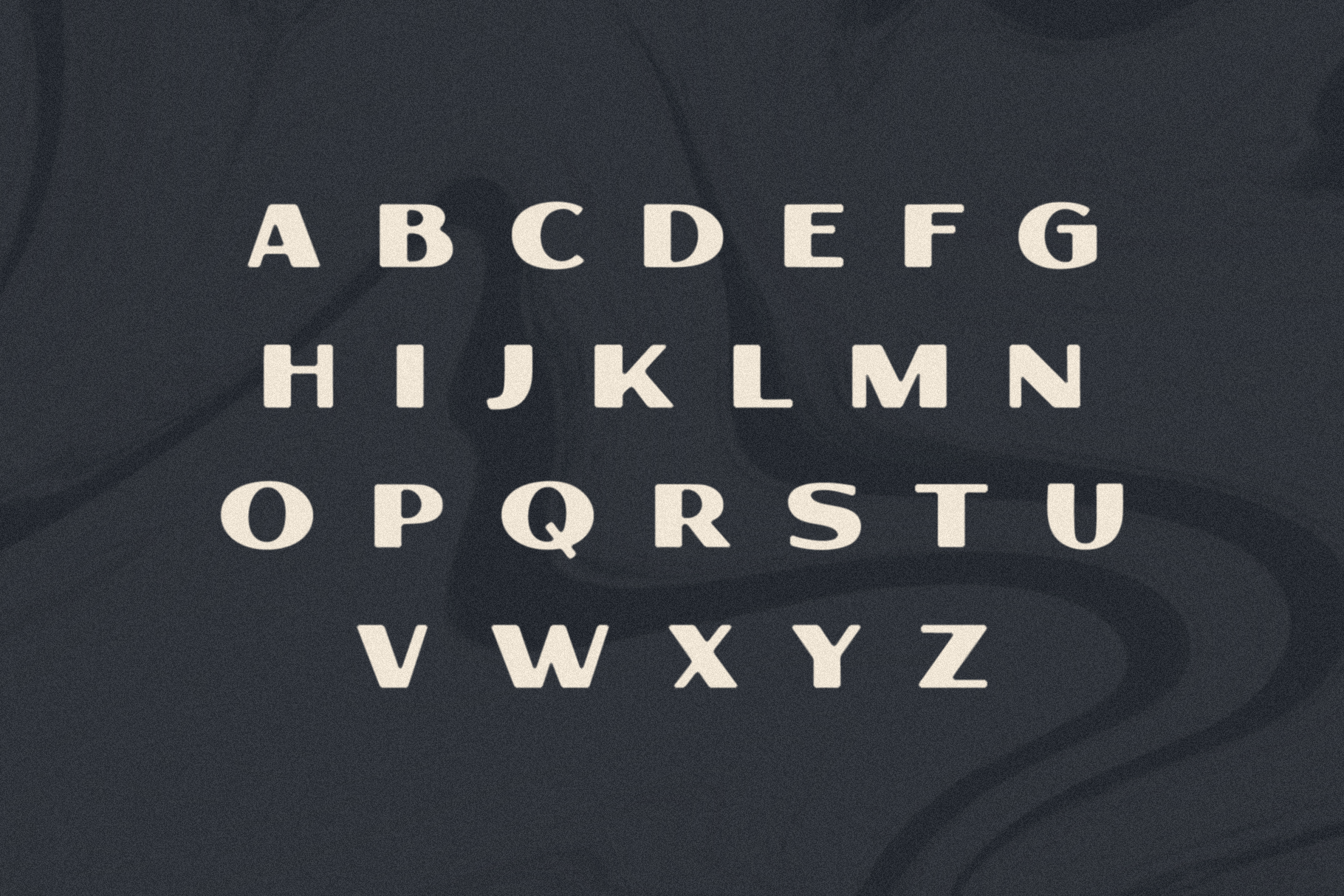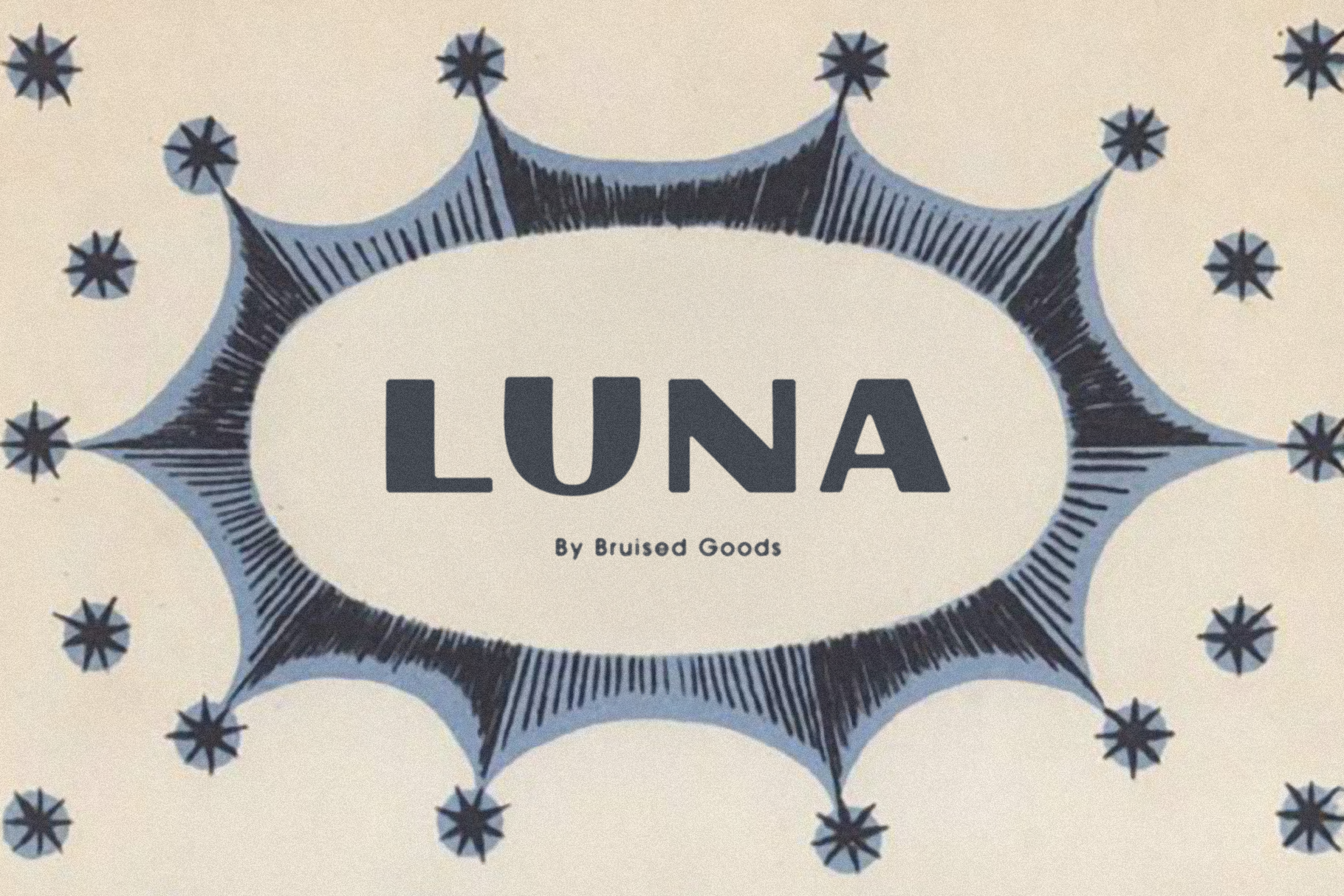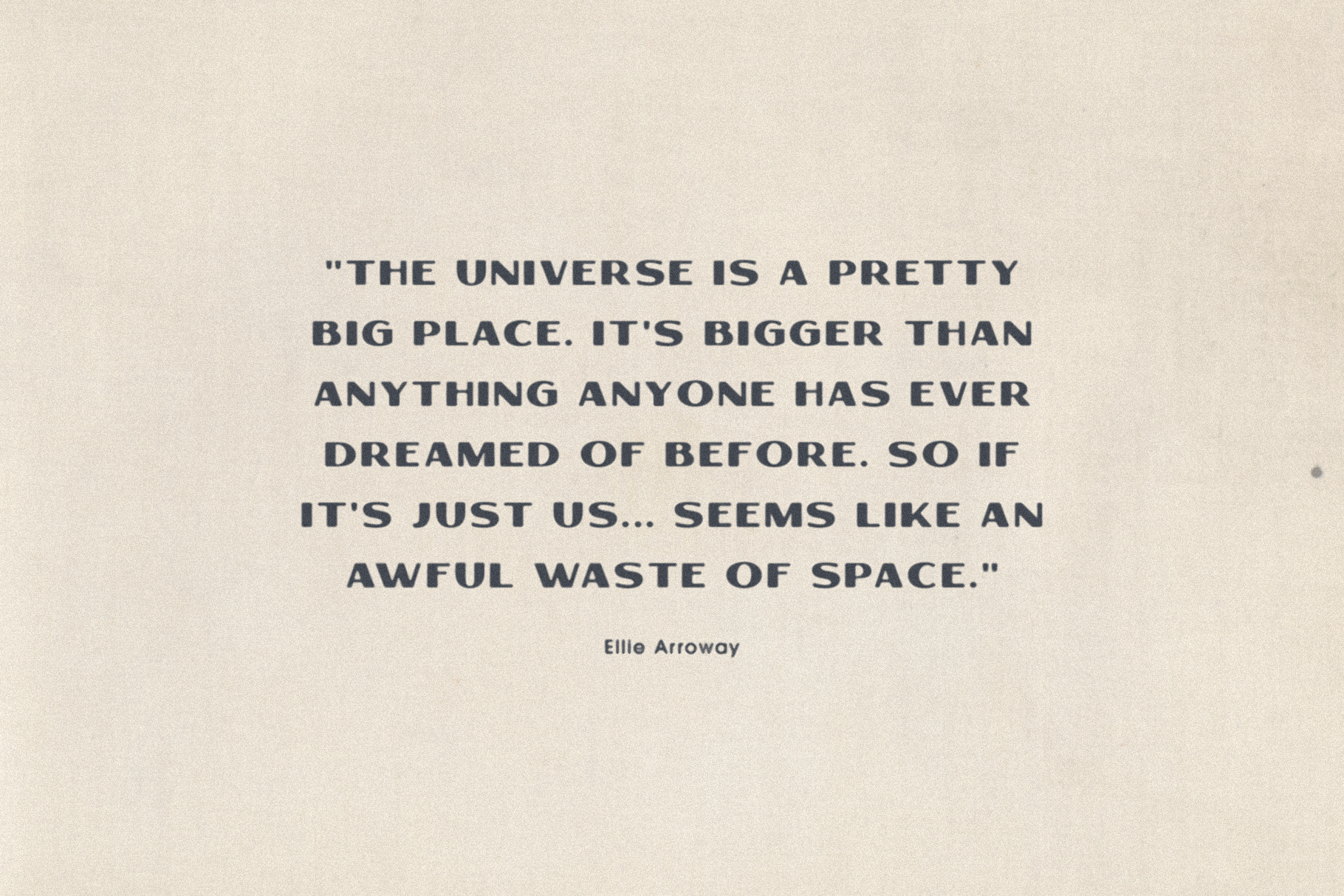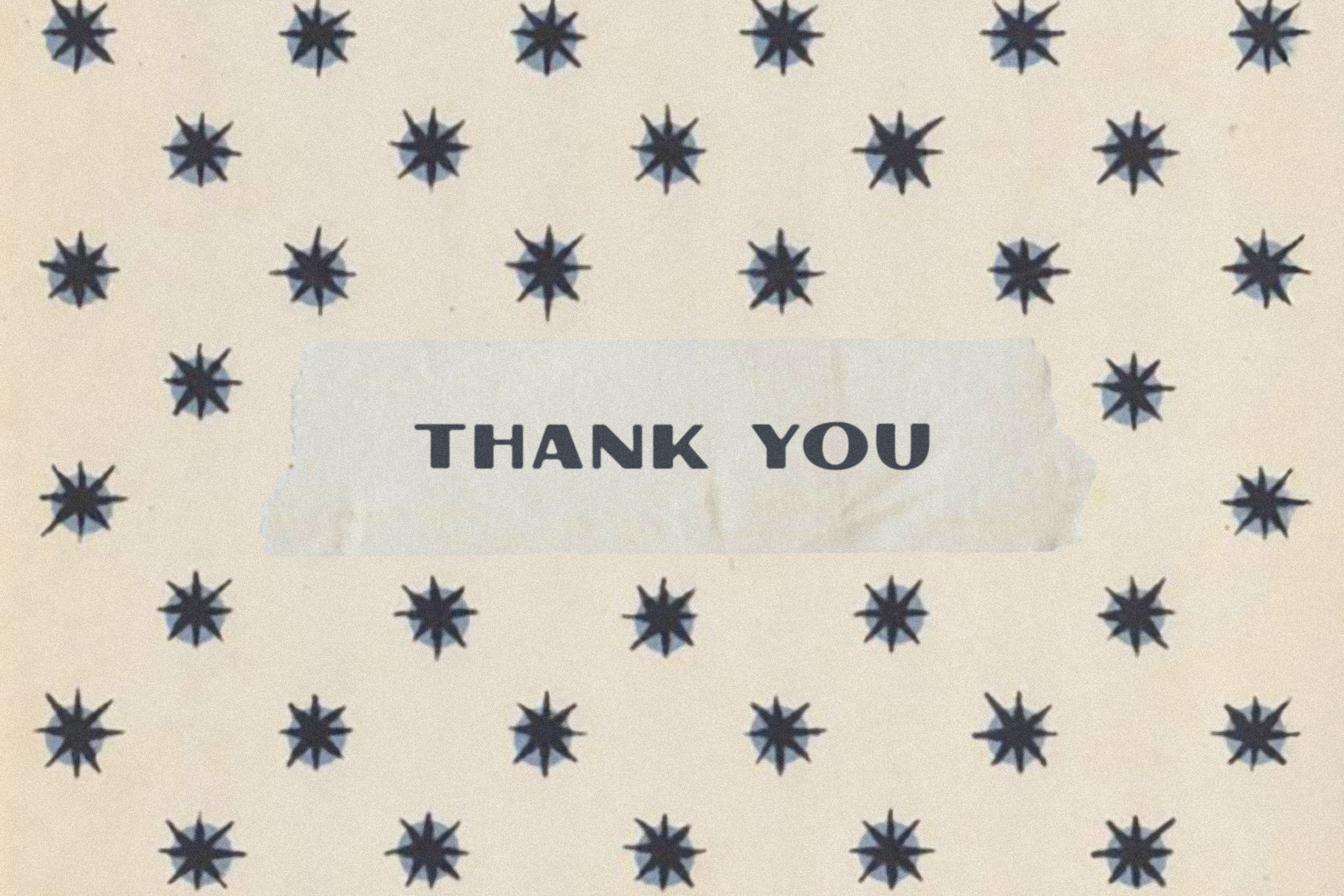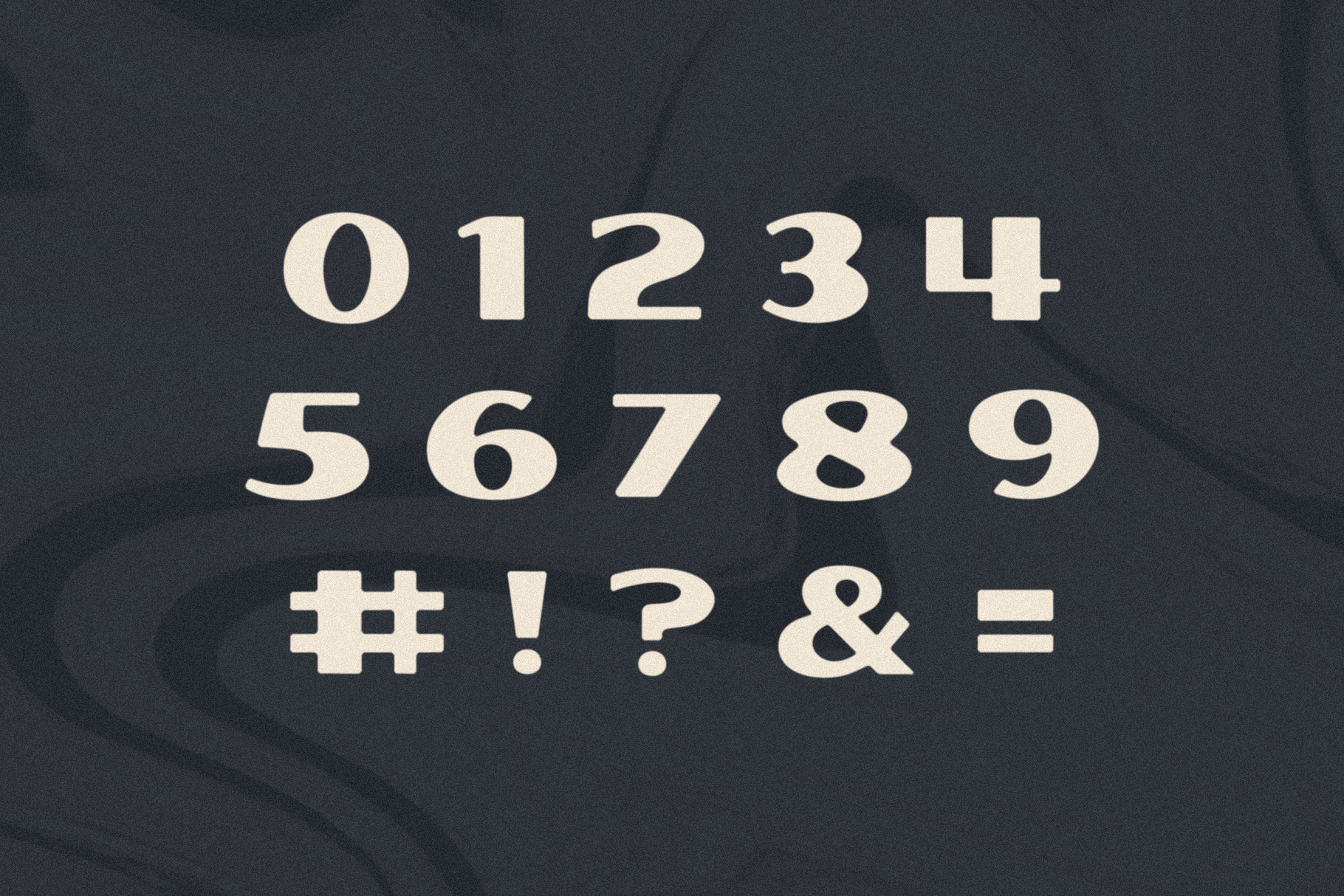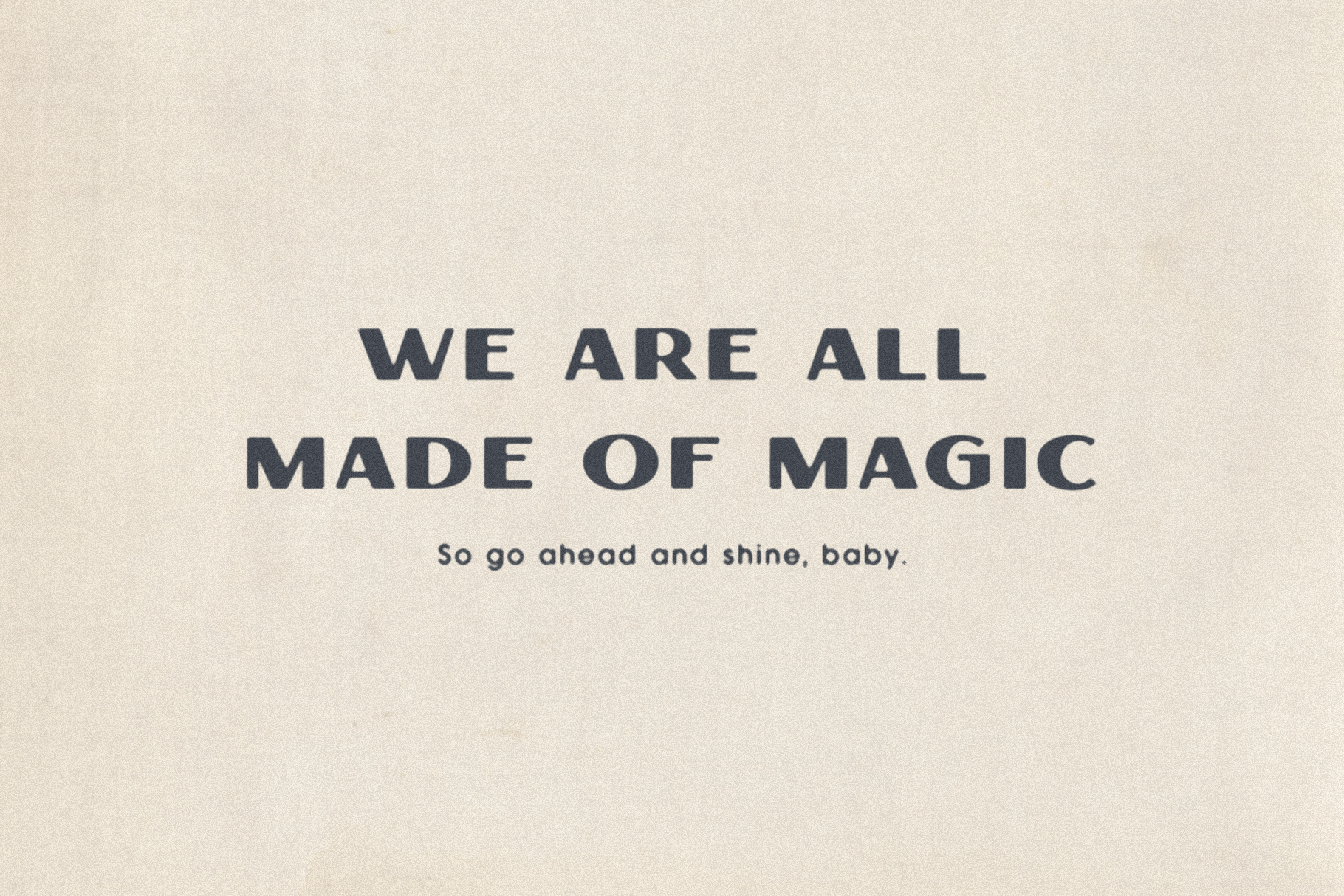
Luna
LUNA – TWO display fonts (regular + rough), inspired by the magical night sky. Both fonts are hand crafted by Bruised Goods in sunny south Florida, USA.
"Regular" and "Rough" Styles
Uppercase letters ONLY
Standard English alphabet
Numbers, Currency Symbols, Standard Punctuation